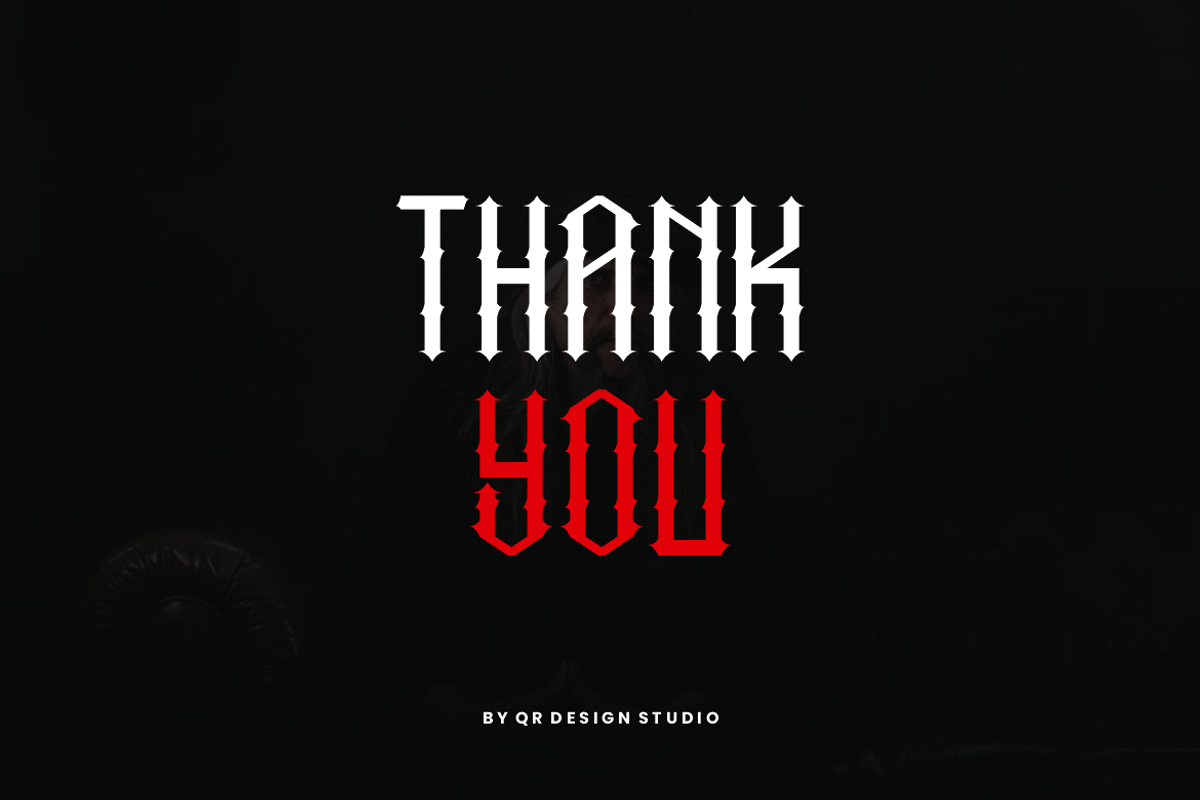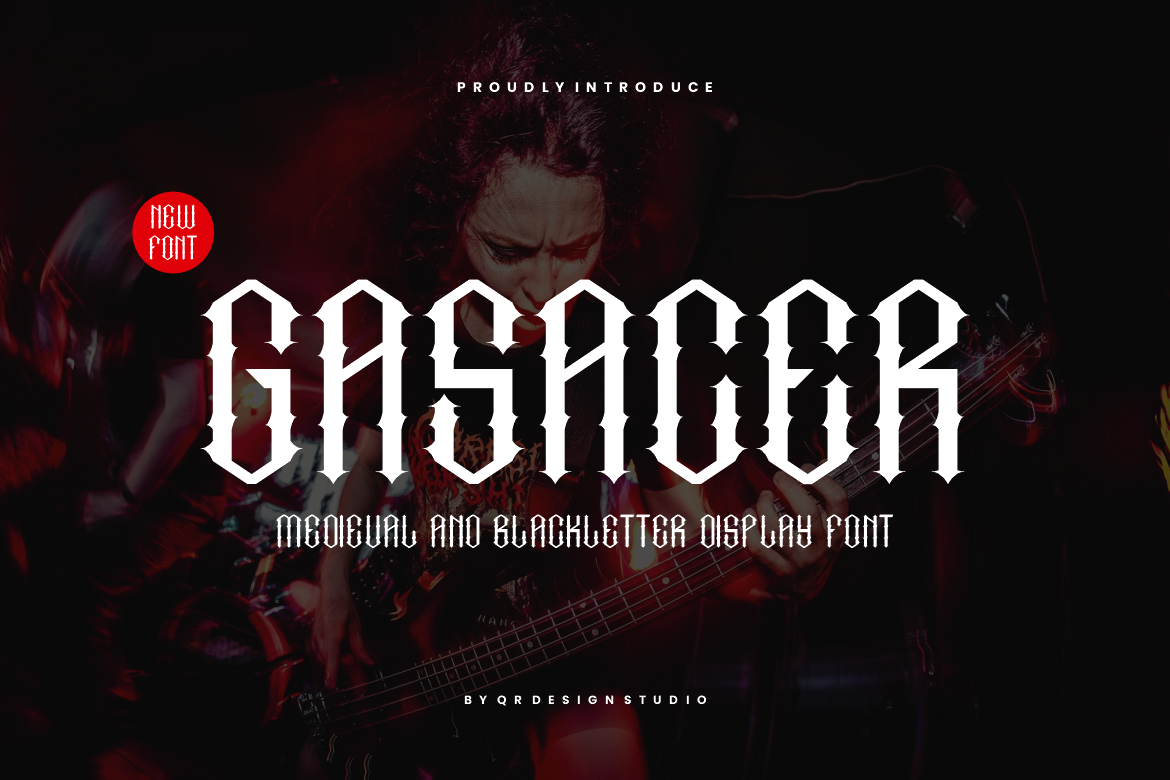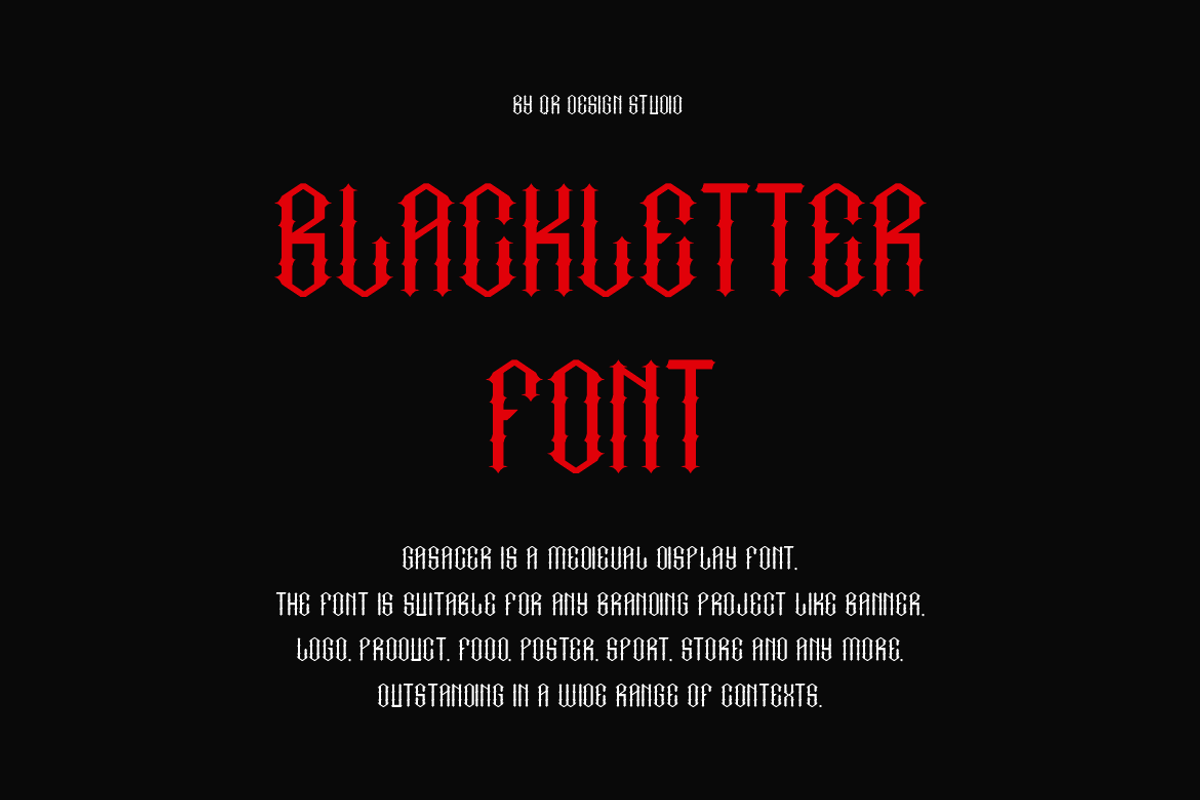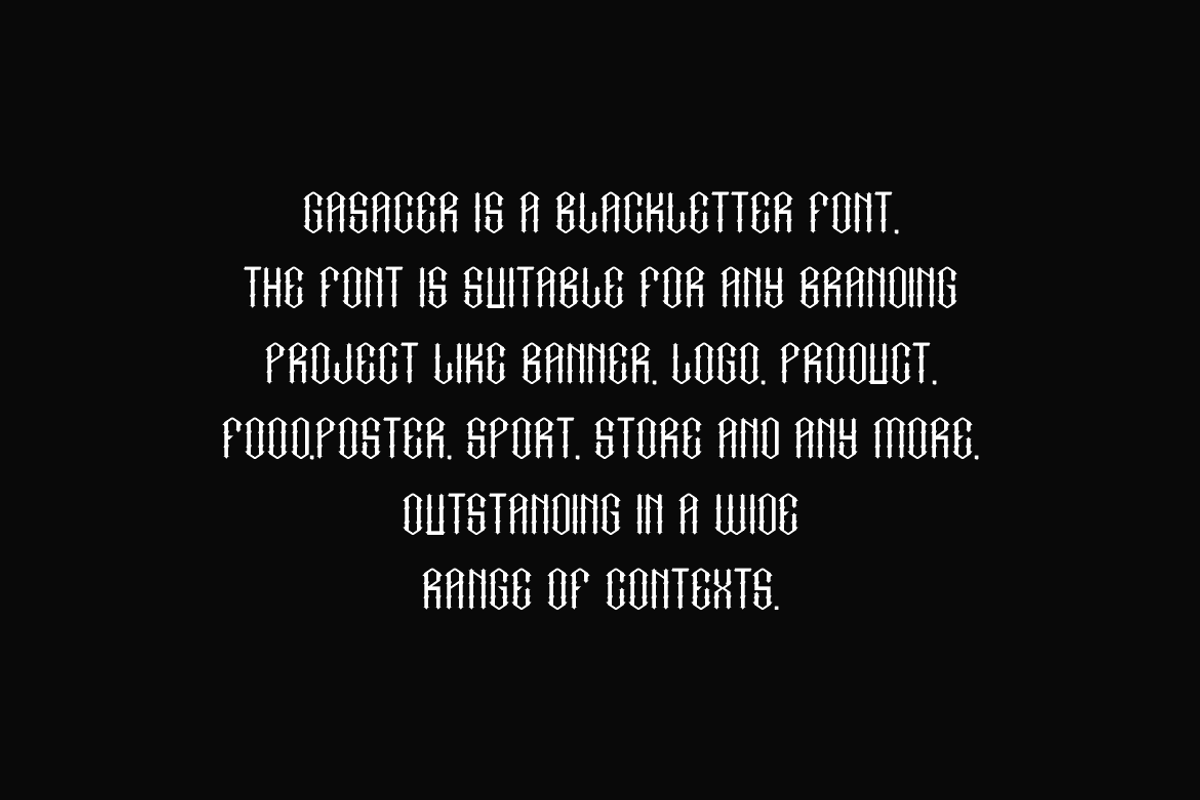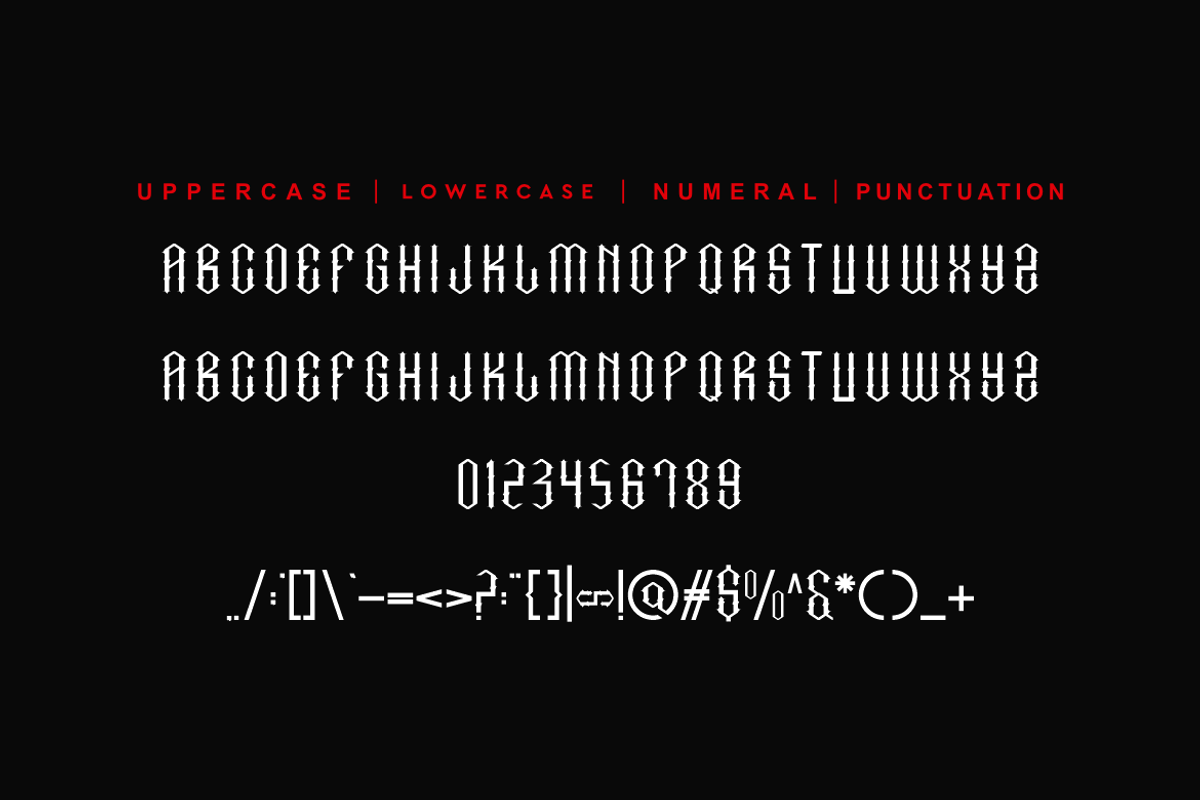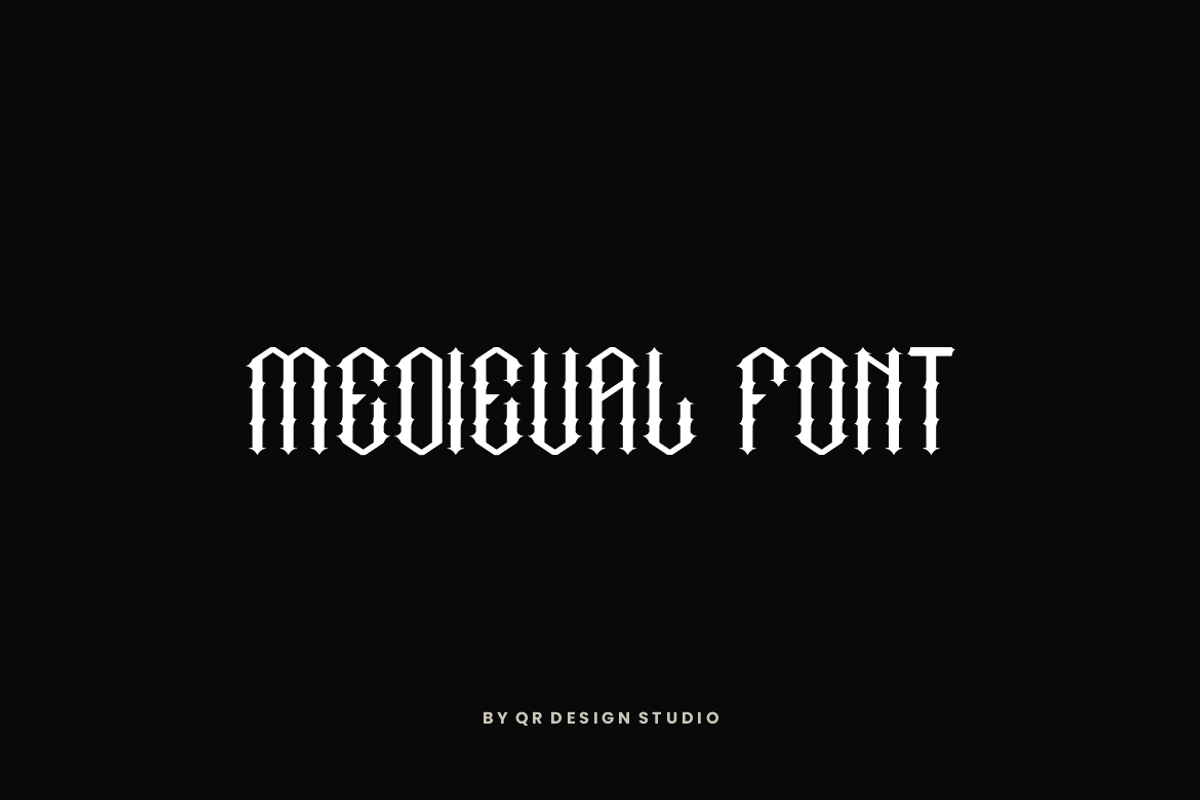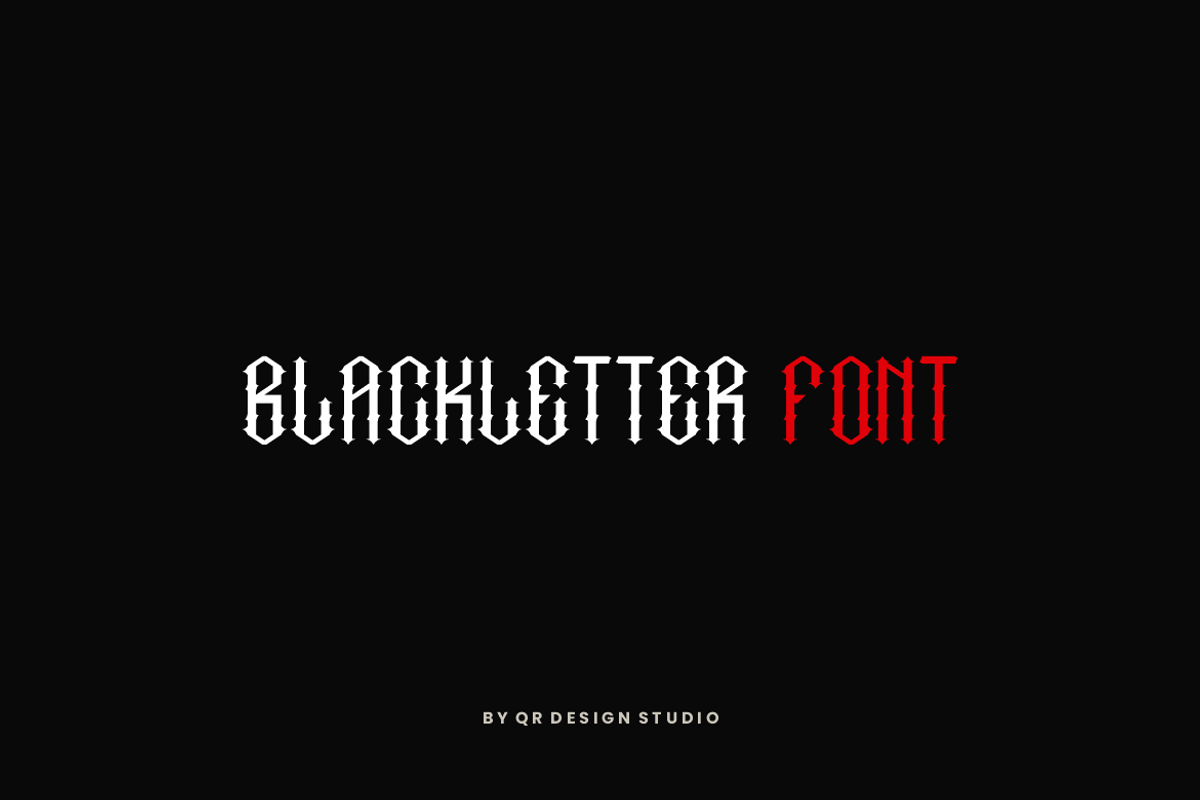
Gasacer - Medieval Blackletter Font
Gasacer Font is a Blackletter and authentic display font. The font is suitable for any branding project like poster, logo, sport, and many more. Outstanding in a wide range of contexts.